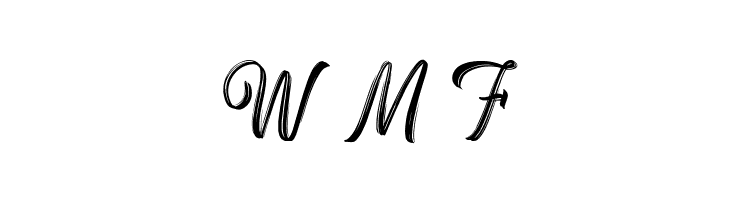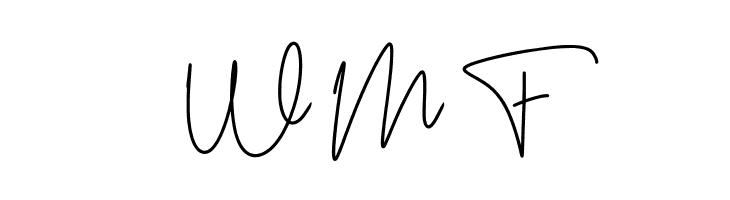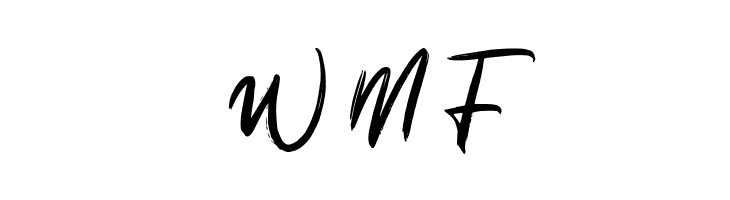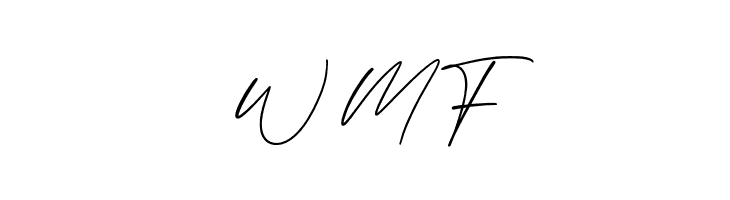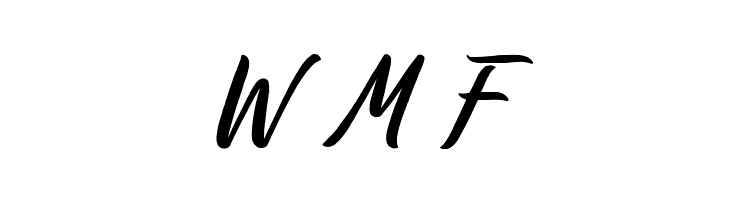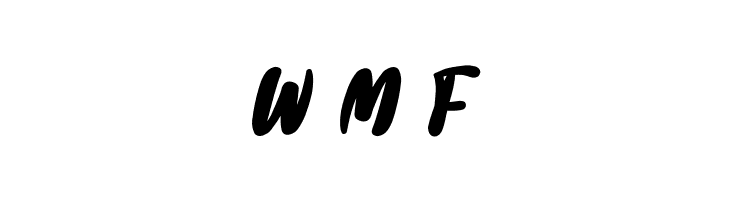
A playful and elegant handwritten script font with decorative swirls.
A cursive, calligraphic font with elegant, flowing characters.
A playful, handwritten font with smooth curves and a whimsical style.
A flowing, cursive script with a handwritten style and moderate stroke thickness.
A lively and expressive handwritten font with fluid strokes and dynamic character.
A playful, narrow font with a hand-drawn, artistic style.
A playful, bold handwritten font with a casual and friendly appearance.